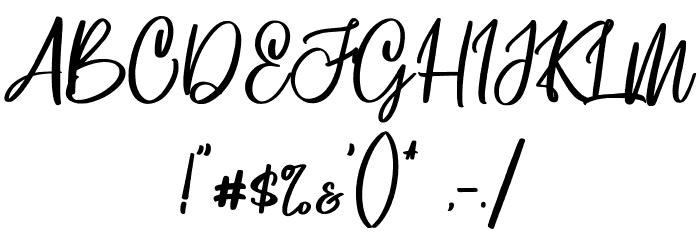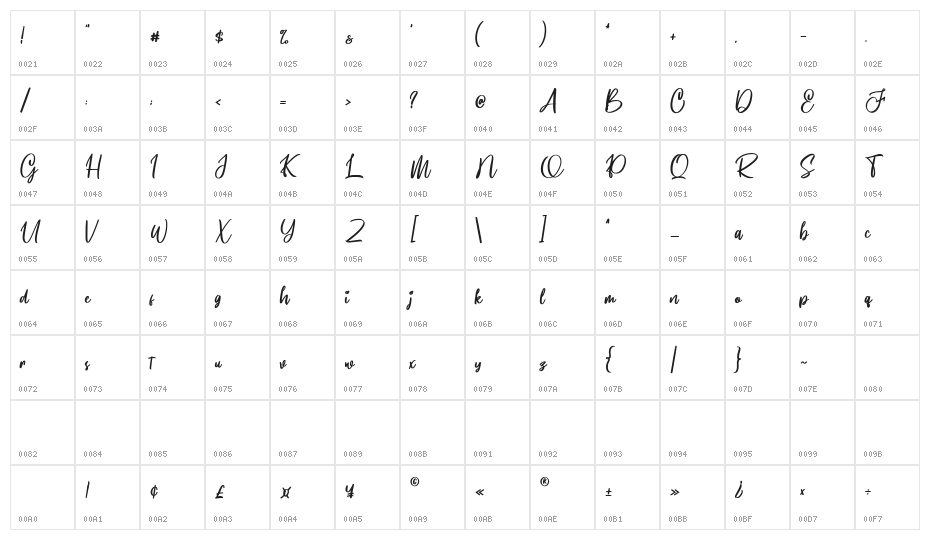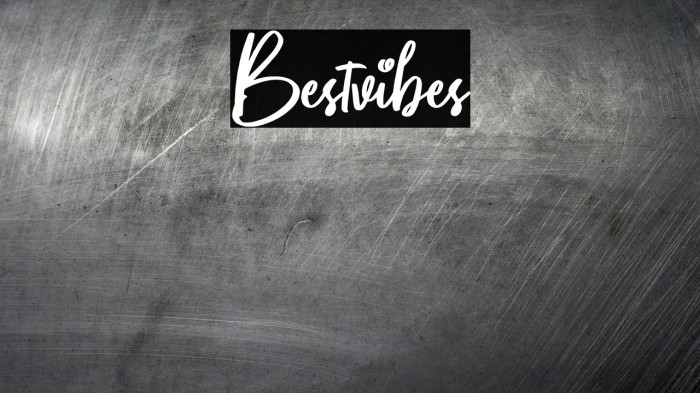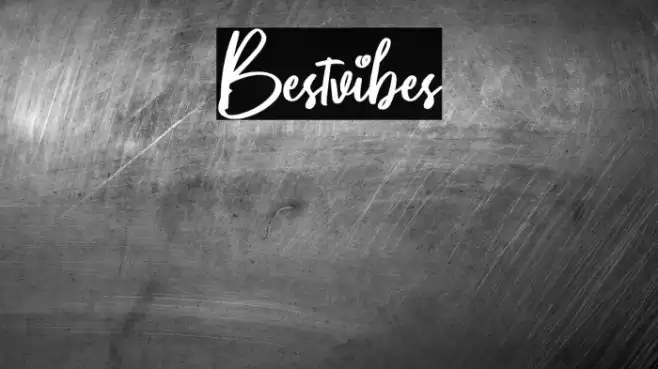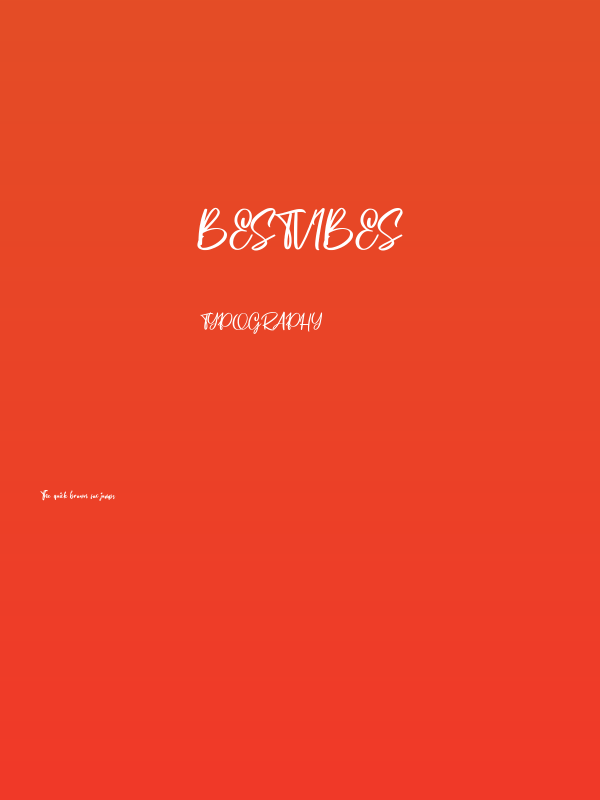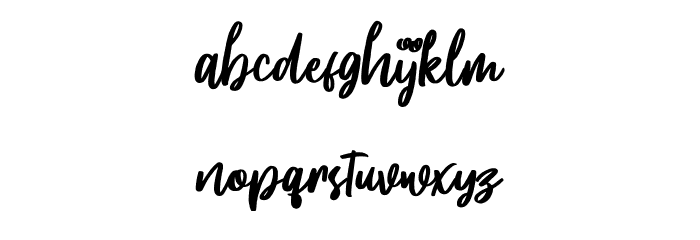
Bestvibes Font
Bestvibes Description
This font features a dynamic and flowing script style, characterized by its elegant and cursive letterforms. The uppercase letters are bold and prominent, with sweeping curves and loops that give a sense of movement and grace. The lowercase letters maintain a consistent style, with a slightly more compact and rounded appearance. The numerals and special characters are designed to complement the overall aesthetic, with similar curves and flourishes. This font exudes a sense of sophistication and creativity, making it suitable for a variety of design applications.
| Proposed Projects | Ideal for wedding invitations, branding, logo design, and elegant packaging. |